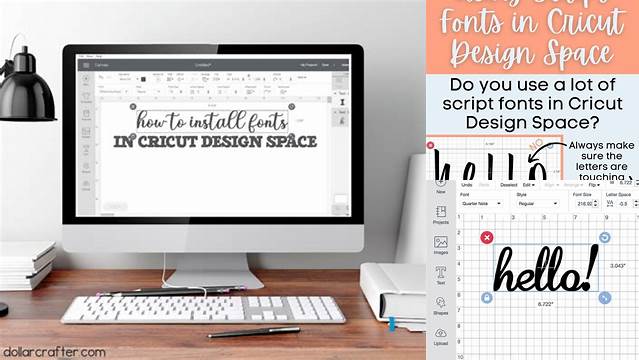
Script Fonts In Cricut Design Space: A Beginner's Guide
Hey there, Cricut crafters! Ever wondered how to make those gorgeous, flowing designs using script fonts in Cricut Design Space? Well, you're in the right place! Using script fonts in Cricut Design Space can truly elevate your projects, giving them a touch of elegance and personality. But let's be honest, it can seem a bit daunting at first. No worries, though! This guide is packed with everything you need to know to master script fonts and create stunning projects. We'll cover everything from finding and installing the right fonts to welding and connecting letters like a pro. So, grab your favorite beverage, and let's dive into the wonderful world of script fonts!
Unveiling the Beauty: Exploring Script Font Styles in Cricut Design Space
Alright, let's start with the basics. What exactly are script fonts, and why are they so darn popular? Script fonts mimic handwriting, offering a graceful and often personalized touch to your designs. They come in various styles, from elegant and formal to playful and casual. Think of the classic, flowing calligraphy fonts used for wedding invitations or the more whimsical styles perfect for children's crafts. The beauty of script fonts lies in their versatility. They can be used for a wide range of projects, including creating personalized cards, designing custom home decor, adding monograms to gifts, and even crafting unique apparel. The key is to find a script font that complements your project's theme and overall aesthetic. Finding the right style is half the battle! Some script fonts are all about that classy, sophisticated vibe with thin strokes and intricate details. Others are a bit more relaxed, with thicker lines and a more casual feel. And don't even get me started on the in-between styles! There are fonts that have a modern touch that blends calligraphy and sans-serif. Explore different styles to see what resonates with you. Try to get a feel for how the letters connect. Do they flow seamlessly, or do they require a little bit of welding magic? Look for fonts with a good balance between legibility and visual appeal. A beautiful font is useless if no one can read it. And most importantly, have fun experimenting! Try out different fonts and see what you like best. You might be surprised at what you discover.
One more thing to remember is that script fonts aren't just for letters. They can also be used to create unique designs and embellishments. Think about using script fonts to create elegant swirls, flourishes, or even custom borders. Get creative and let your imagination run wild! When you're first starting out with script fonts, consider practicing with some free fonts. There are tons of websites where you can download free script fonts. This allows you to try out different styles without spending any money. Once you've got the hang of things, you can start exploring more premium fonts. These fonts often offer more features and design elements. The key to success is to be patient, experiment, and most importantly, have fun! Cricut Design Space offers an easy platform for designing with script fonts, but the real creativity lies in your willingness to learn and explore. With a little practice and a lot of passion, you'll be creating stunning designs in no time.